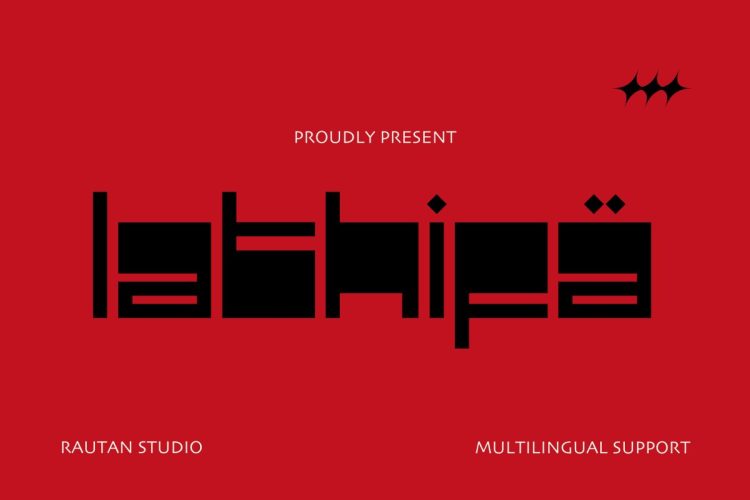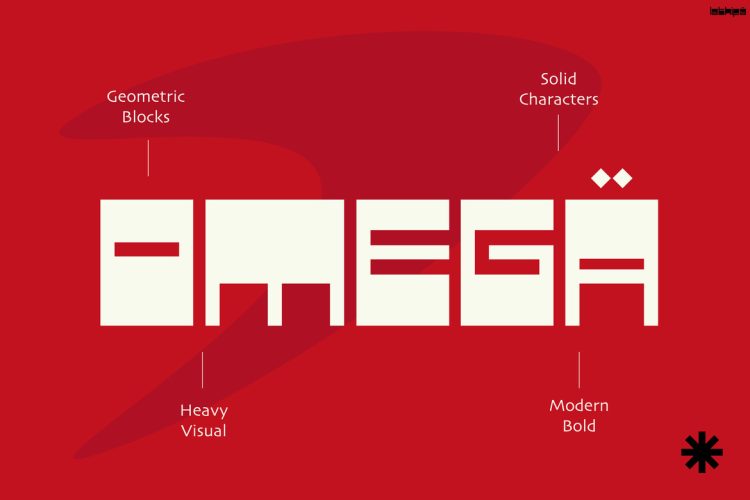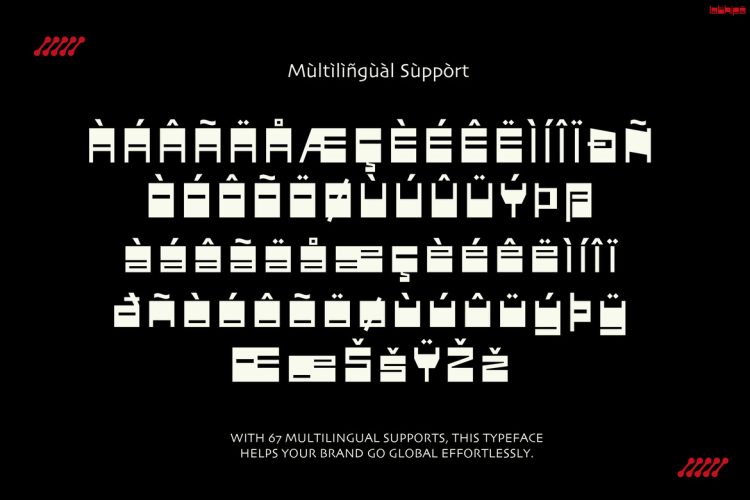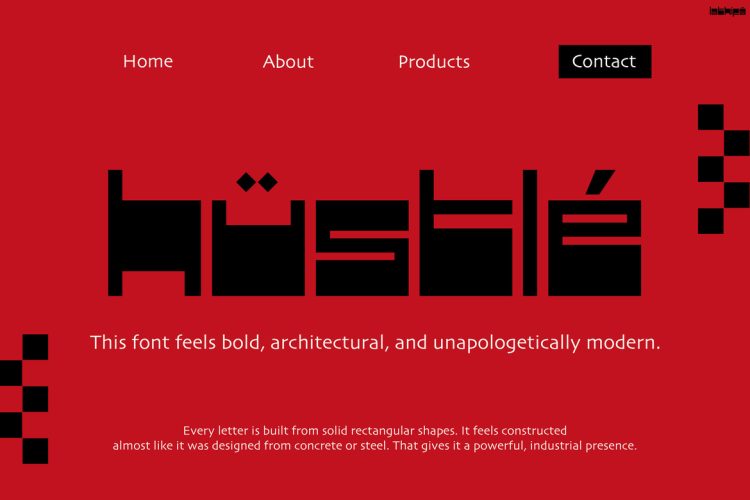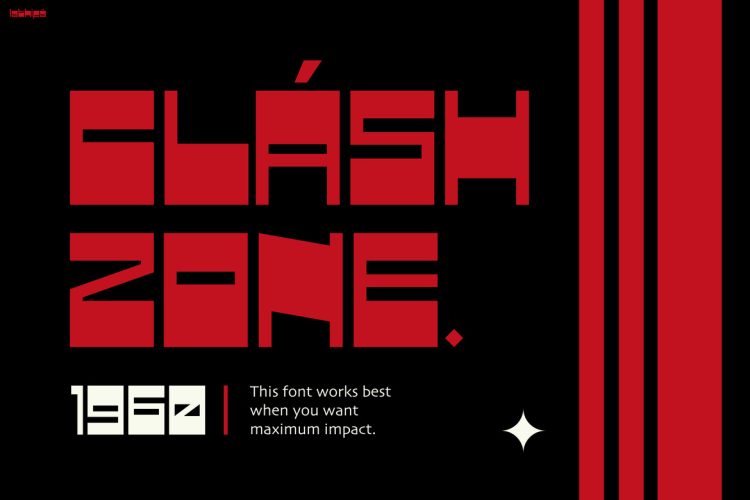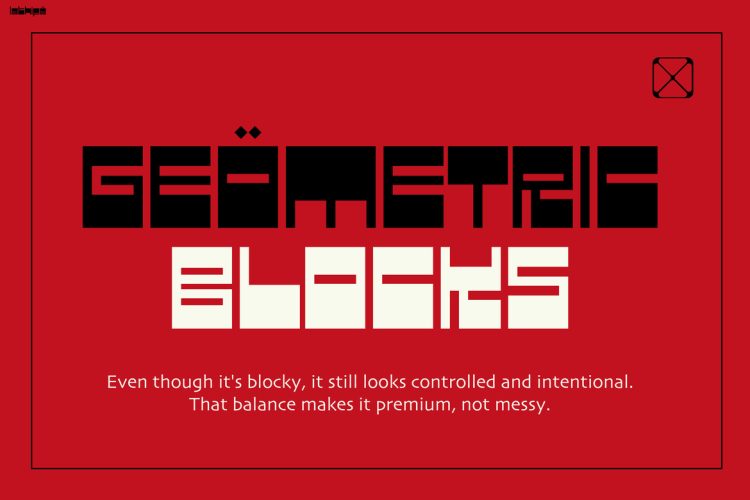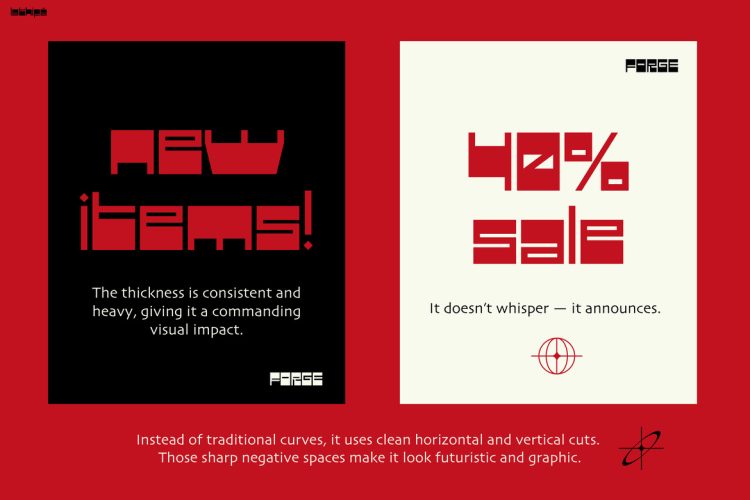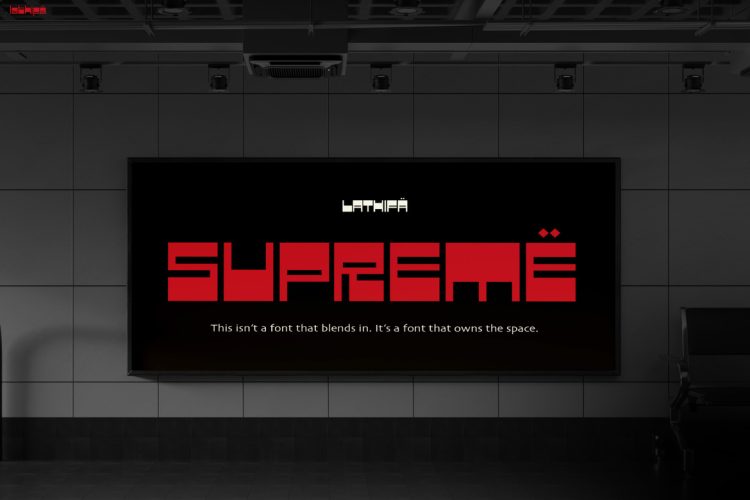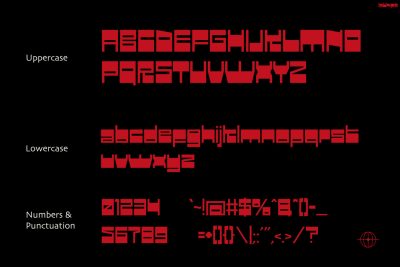
Instagram Font Lathifa – Structured Power, Modern Authority
Instagram Font Lathifa is a bold architectural display typeface designed to project strength and precision from the very first glance. At its core, the font combines sharp geometric construction with compact proportions; as a result, it delivers a clean yet commanding visual presence. Moreover, the calculated angles and solid horizontal weight create a rhythm that feels engineered and intentional. Instead of relying on decorative excess, it focuses on structure and balance. Therefore, every headline appears disciplined, modern, and unmistakably strong.
In addition, Instagram Font Lathifa uses sharp terminals and modular letterforms to reinforce its futuristic personality. Because of this structural clarity, it performs exceptionally well in large-scale layouts. Whether applied to posters, website headers, or product packaging, it maintains clarity and impact simultaneously. Furthermore, the controlled spacing enhances readability while preserving its bold silhouette. Supporting 67 languages, it also ensures global usability for international brands. Consequently, designers can communicate across markets without sacrificing stylistic consistency. With full uppercase, lowercase, numerals, punctuation, and multilingual glyphs, the font offers both creative flexibility and professional reliability.
Designed for High-Impact Branding
Instagram Font Lathifa thrives in projects that demand authority and precision. For example, it strengthens tech startups, streetwear labels, automotive campaigns, esports branding, and luxury packaging. Additionally, it enhances editorial layouts and digital promotions with a sharp, strategic edge. Because of its architectural geometry, logos feel more stable and premium.
Ideal for Vision-Driven Creators
Therefore, this typeface is perfect for graphic designers, branding agencies, creative directors, marketing teams, and entrepreneurs seeking bold typographic clarity. Likewise, brands that value modern structure and confident communication will benefit from its presence.